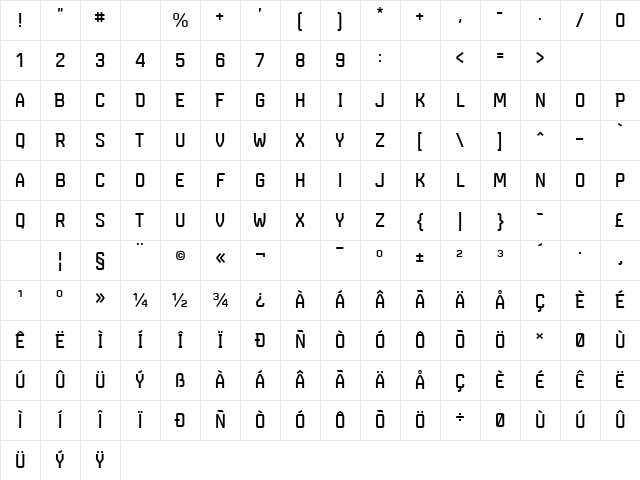
Marsmonster Demo Normal
Foundry: B￿ro Sequenz
Designer: Affenprinz Belmondo
Design Context for Marsmonster Demo
Marsmonster Demo is a composed and adaptable typeface that performs quietly and consistently across a wide range of design contexts.